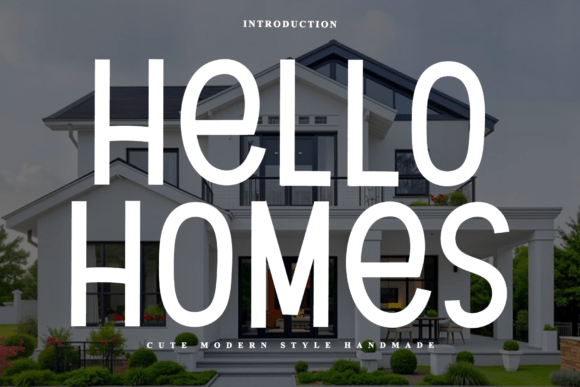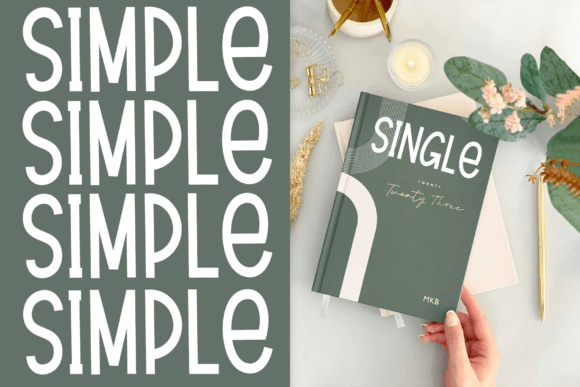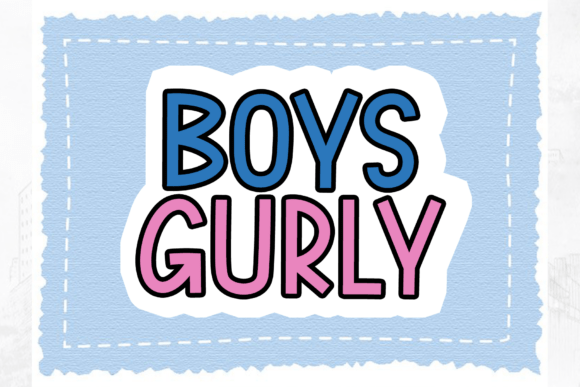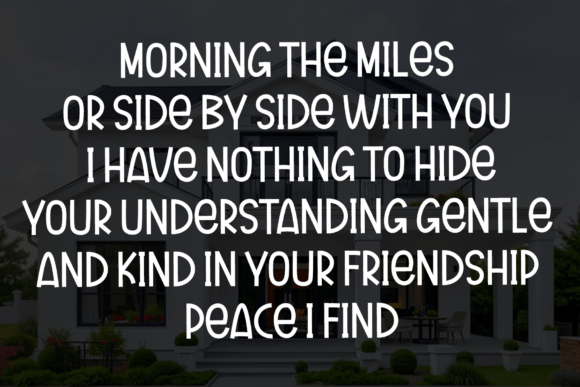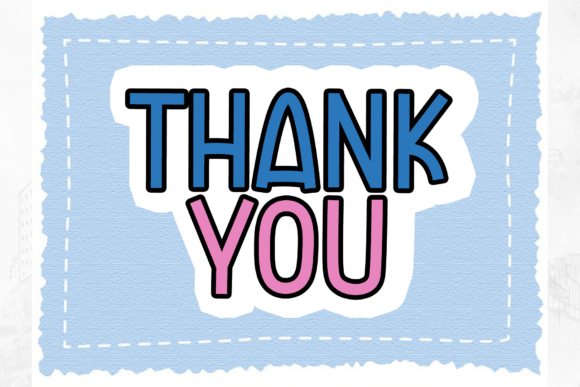
Discover the Magic of Hello Homes Font
As a designer, there’s nothing quite like the thrill of seeing your ideas come to life on paper. You’ve poured your heart and soul into a project, and suddenly, everything clicks – the colors, the typography, the overall vibe. That’s exactly what happened when I stumbled upon the Hello Homes Font. This charming, handwritten font is more than just a pretty face; it’s a game-changer for designers looking to add a touch of personality to their work.
| 👤 Author | Sansana |
With its unique, hand-crafted feel, the Hello Homes Font is perfect for creating eye-catching logos, branding, and quotes that truly stand out from the crowd. Whether you’re a seasoned pro or just starting out, this font is an invaluable addition to your design toolkit. So, let’s dive in and explore the world of Hello Homes Font – I promise you won’t be disappointed!
Hello Homes Font Key Features
- Font Family: Hello Homes is a modern sans-serif font family with 12 styles, including 6 weights and 6 matching italics.
- Unique Characteristics: Hello Homes features a unique blend of clean lines, geometric shapes, and subtle rounded edges, giving it a modern and approachable feel.
Hello Homes Font Review
Hello Homes Font is a lovely, minimalist font that has captured the hearts of many designers. Here’s my honest review.
- Elegant and Simple Design: Hello Homes Font has a clean and simple design that makes it perfect for various projects, from branding to digital products.
- Legibility: The font is highly legible, making it a great choice for body text and headings.
- Flexibility: Hello Homes Font comes in multiple weights and styles, giving designers a wide range of options for their projects.
- Limited Expressiveness: While Hello Homes Font is elegant, it can feel a bit sterile and lacks the expressiveness of more decorative fonts.
- Not Ideal for Emphasis: The font’s simplicity can make it difficult to use for emphasis or creating visual interest in a design.
Hello Homes Font is a solid choice for designers who value simplicity and elegance. While it may not be the most exciting font, it’s reliable and versatile. If you’re looking for a clean and legible font for your next project, Hello Homes Font is definitely worth considering.
The Hello Homes Font is ideal for:
- Real estate marketing materials
- Home decor branding
- Interior design projects
Alternatives to Hello Homes Font
Comparison to Hello Homes Font: Open Sans has a similar clean and modern look, but it is more formal and professional. It is a great choice for corporate or business projects.
Comparison to Hello Homes Font: Lato has a similar modern and clean look, but it is more playful and creative. It is a great choice for projects that require a friendly and approachable tone.